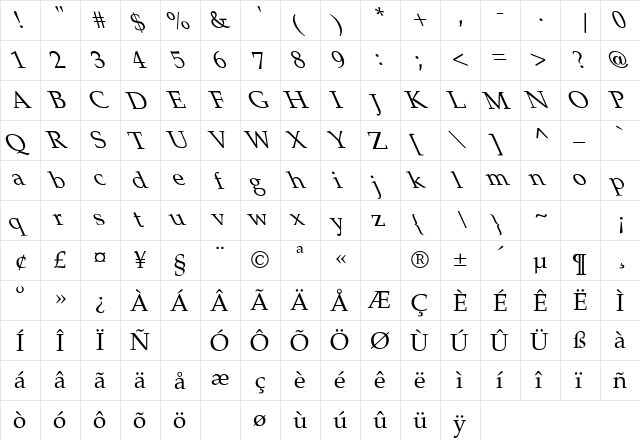
Palatino-Roman Leftified Regular
Design Context for Palatino-Roman Leftified Typeface
Palatino-Roman Leftified takes a measured approach to typography — its balanced proportions and neutral character make it a reliable workhorse for both digital and print work.